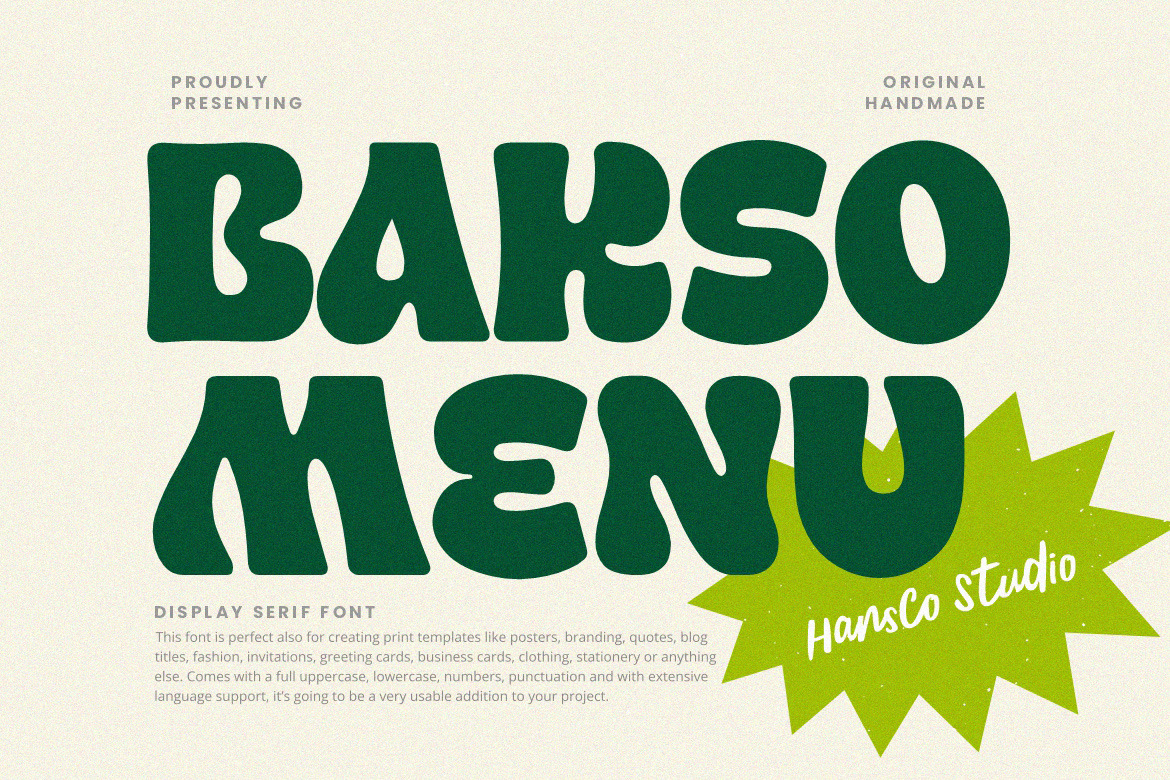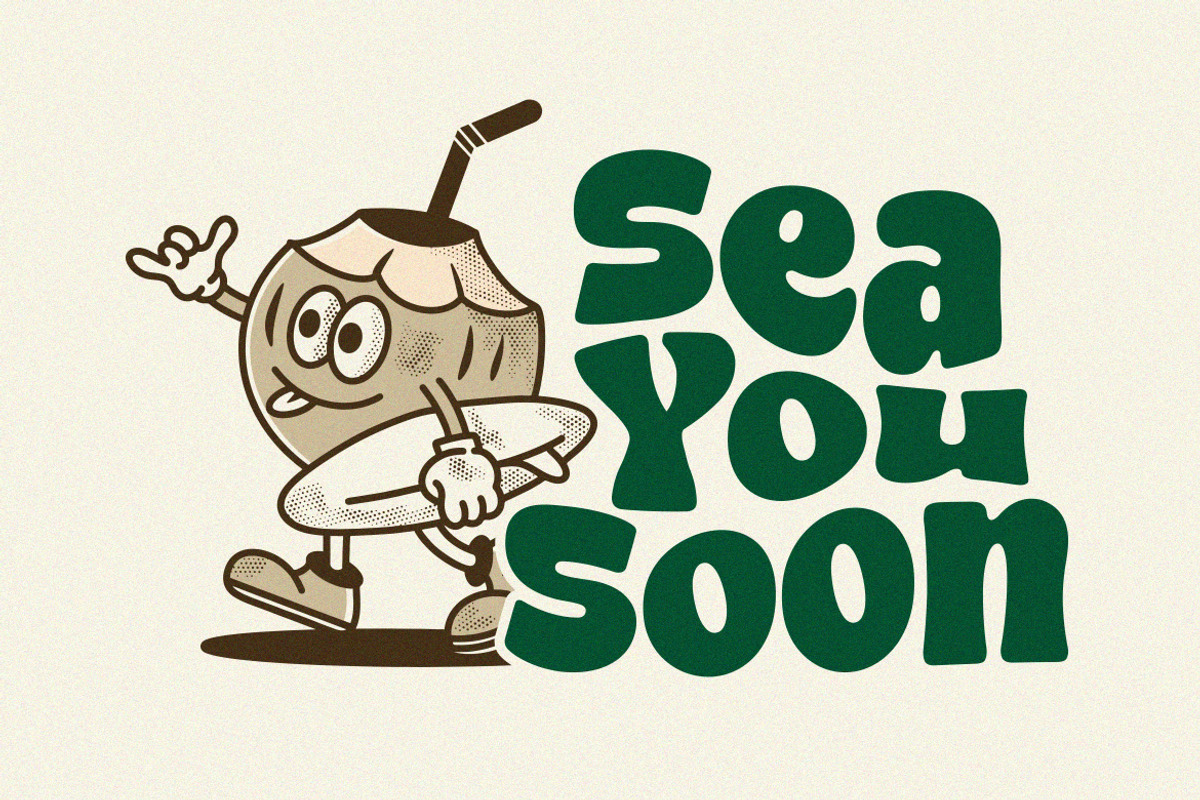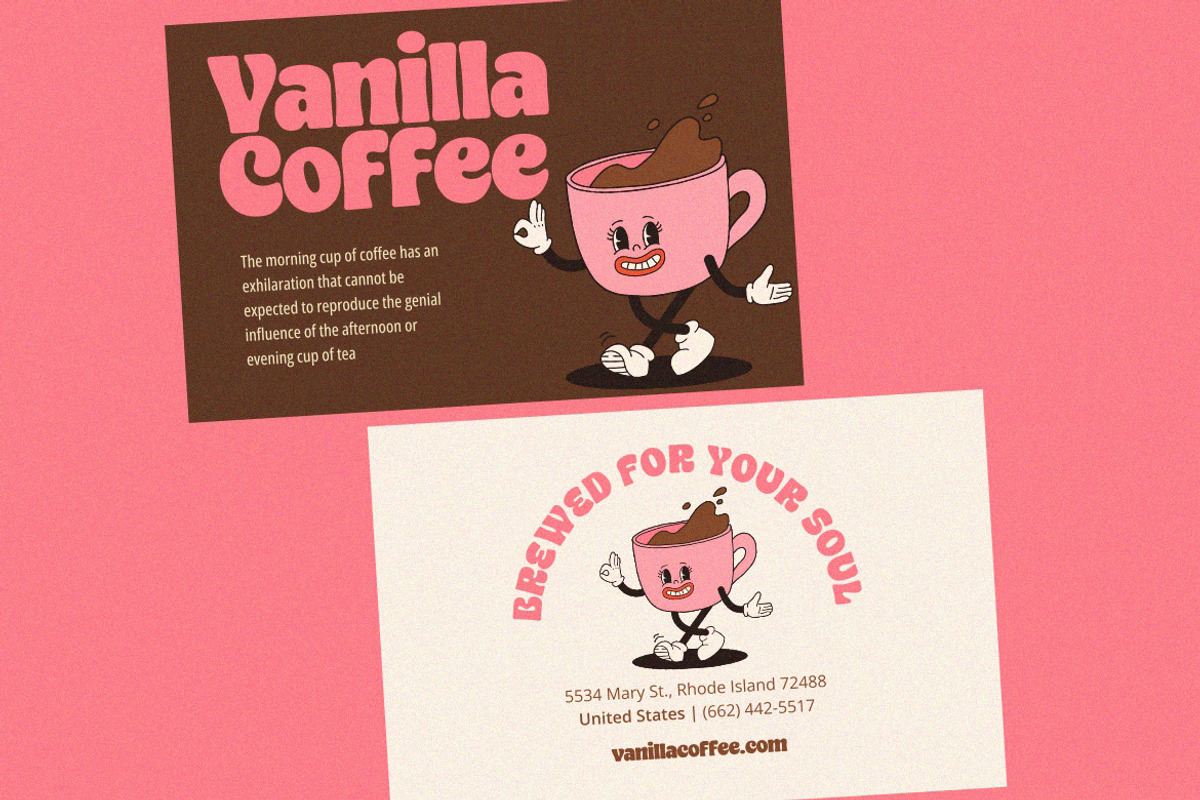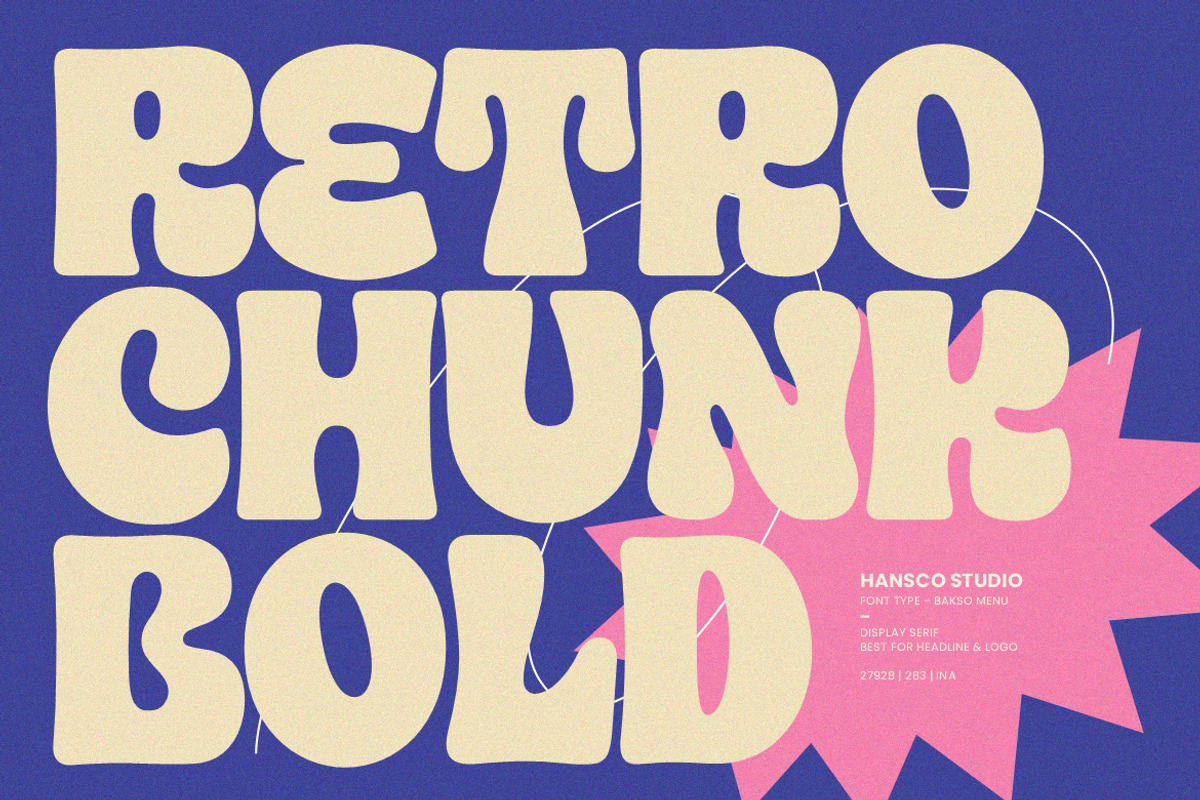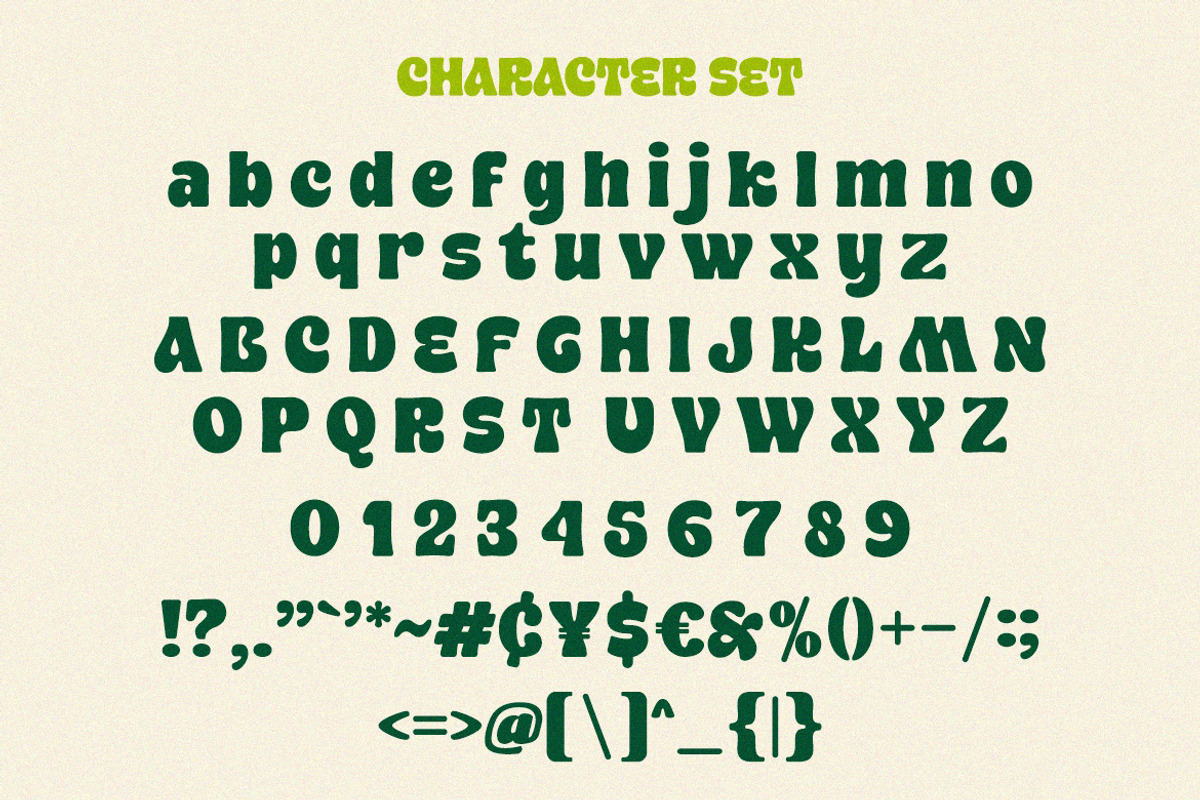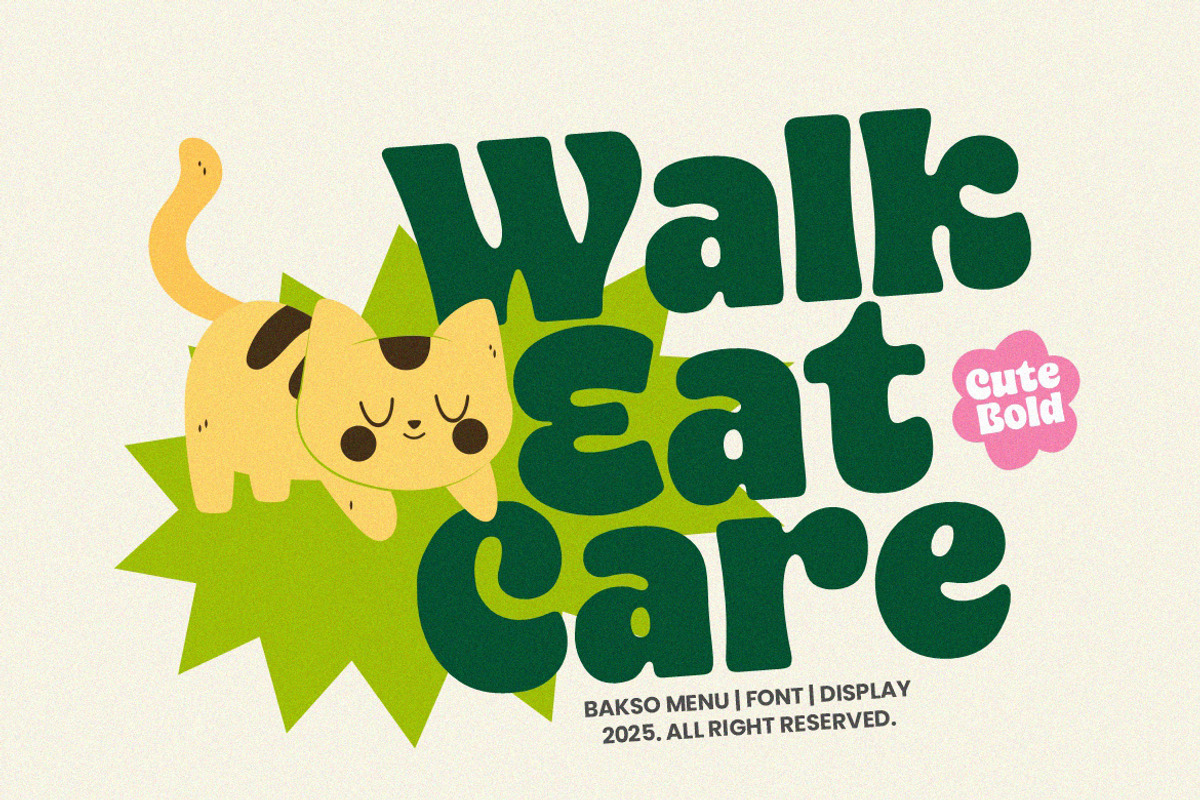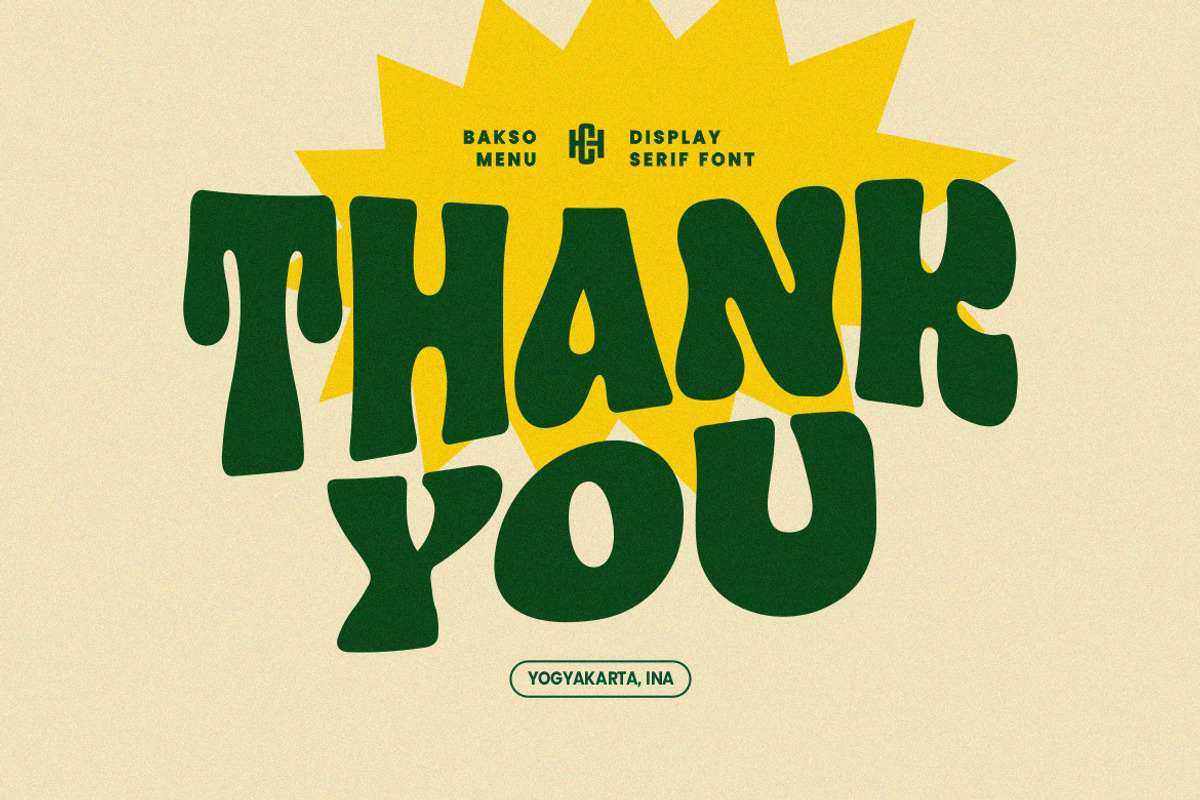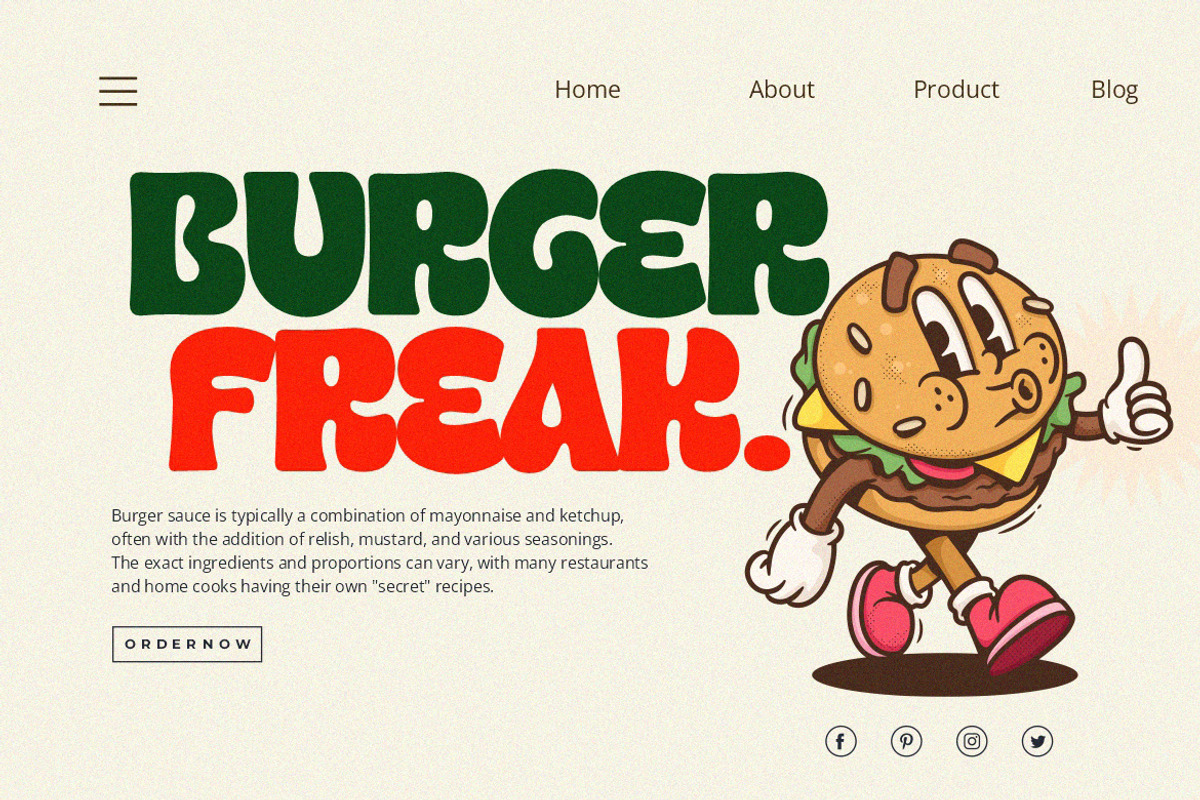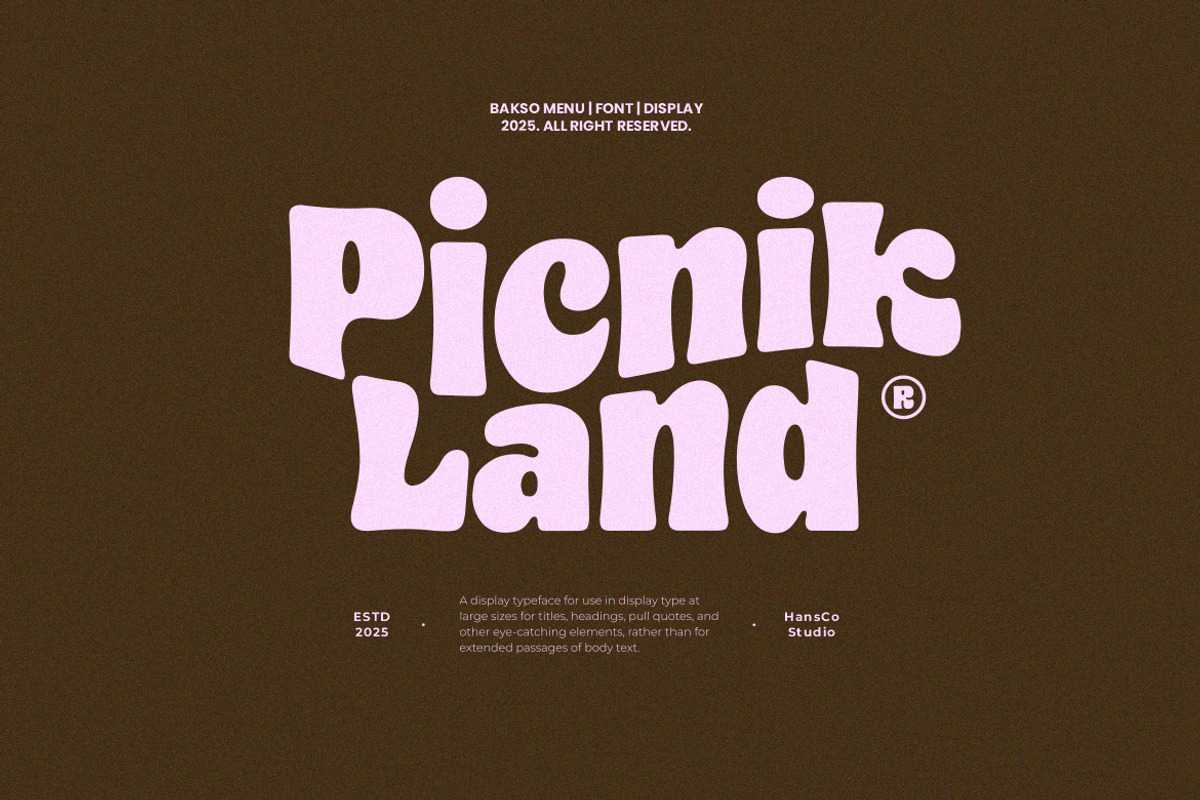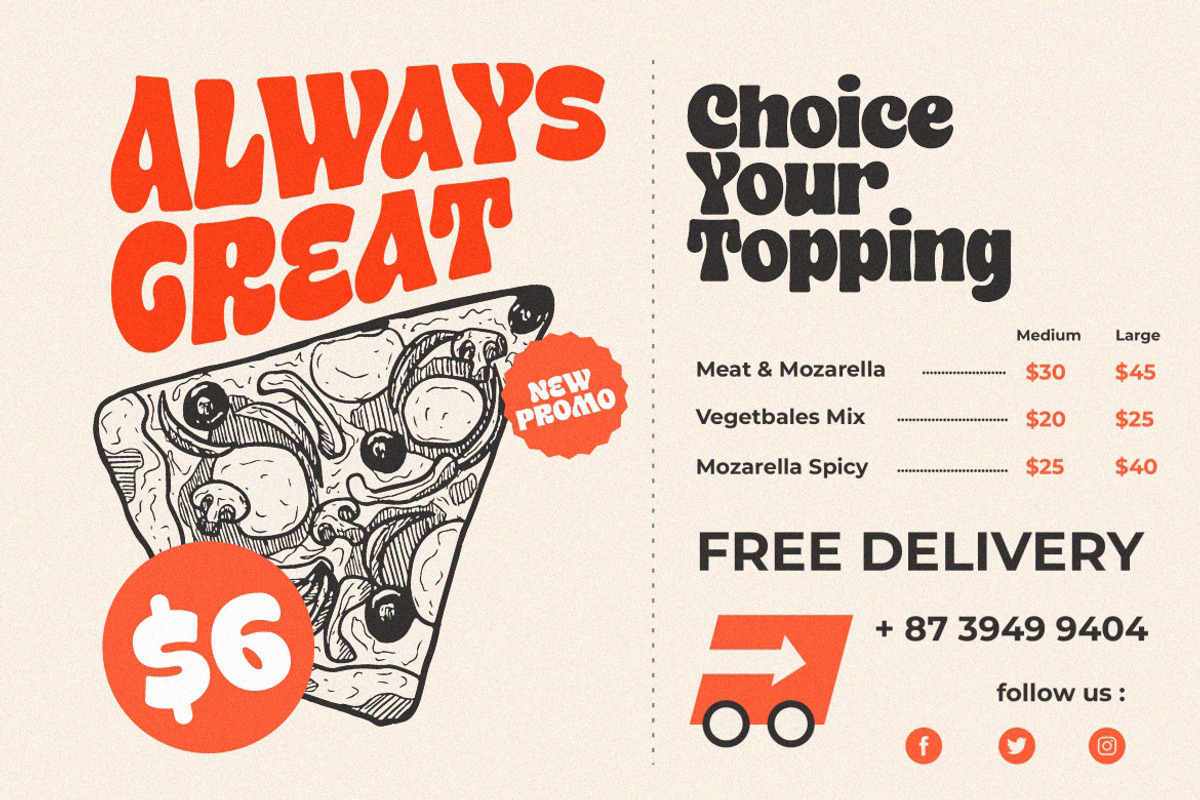
Bakso Menu Font
Bakso Menu Font is a retro bold display font style with rounded touch. Equipped with all complete characters ranging from uppercase letters, lowercase letters, numbers, punctuation marks and standard multi-lingual support, this font is ready to be used in any project. Very suitable for logotype, Stickers, Packaging design, Cricut Project, headlines, brand identity, posters, magazines, books, YouTube, Instagram, websites, Canva, Corjl or any of your creative design projects. Use this Bakso Menu Font to add that special modern retro touch to any design idea you can think of!